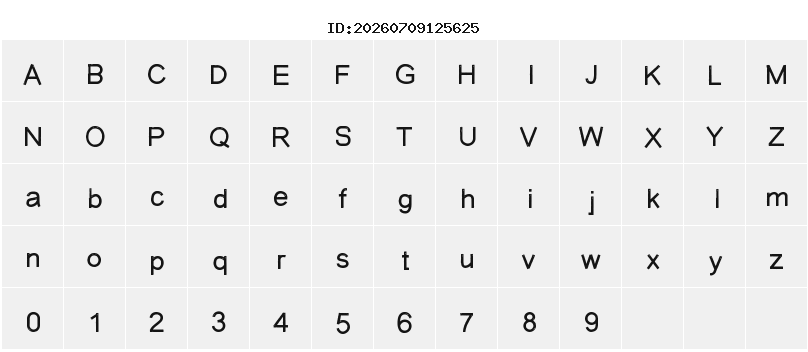
字体传奇雪家黑-粉丝免费 Preview
• Font Name: 字体传奇雪家黑-粉丝免费
• Full Font Name: 字体传奇雪家黑-粉丝免费
• Designer: 张家佳字体团队
• Description: 国家版权局登记字体作品
About 字体传奇雪家黑-粉丝免费.ttf
字体传奇雪家黑-粉丝免费.ttf is a modern, elegant sans-serif font designed for ultimate readability and visual harmony. Perfect for branding, headlines, web design, and print materials.